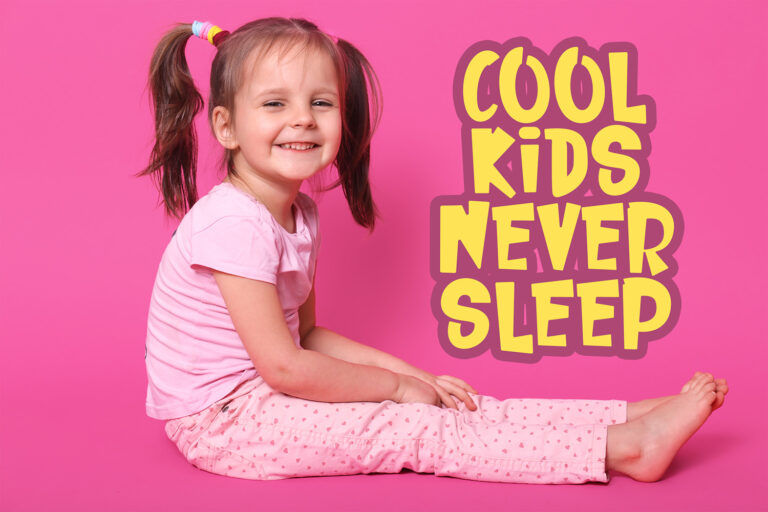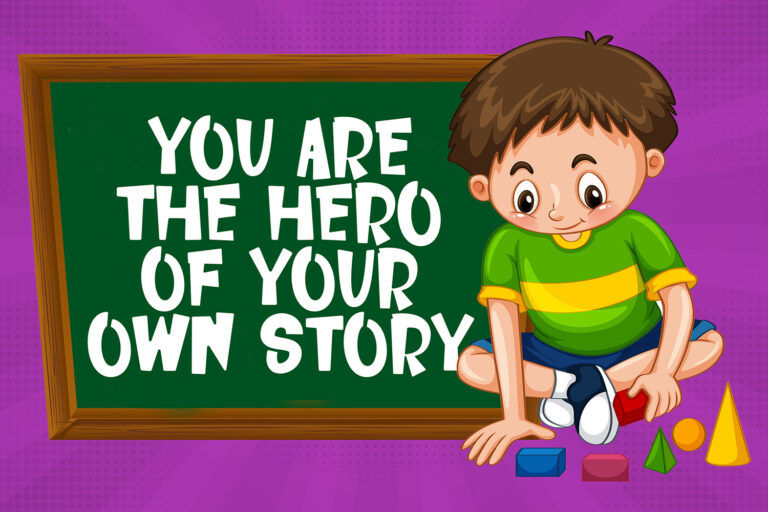
The Kinder Boys Playful Font brings a burst of youthful charm and animated energy to any design it touches. With its bold, hand-drawn letterforms and slightly bouncy baseline, this display font radiates a fun and approachable personality—perfect for projects that aim to captivate a young audience or channel a childlike spirit. Each character has a chunky yet friendly structure, making it easily legible while still feeling spontaneous and expressive. The playful irregularities in stroke width give it a handcrafted vibe that feels authentic and engaging.
Kinder Boys Playful Font is an excellent choice for children’s books, birthday invitations, educational posters, classroom materials, cartoon branding, or kid-themed YouTube thumbnails. It also works beautifully on seasonal graphics like Easter or holiday cards, thanks to its cheerful and adaptable aesthetic. The added shadow styling seen in its promotional visuals gives it a standout pop effect, ideal for headers and signage.
Its multilingual support and wide range of symbols make Kinder Boys a versatile font that doesn’t just look fun—but works hard behind the scenes to deliver personality across various platforms and languages.